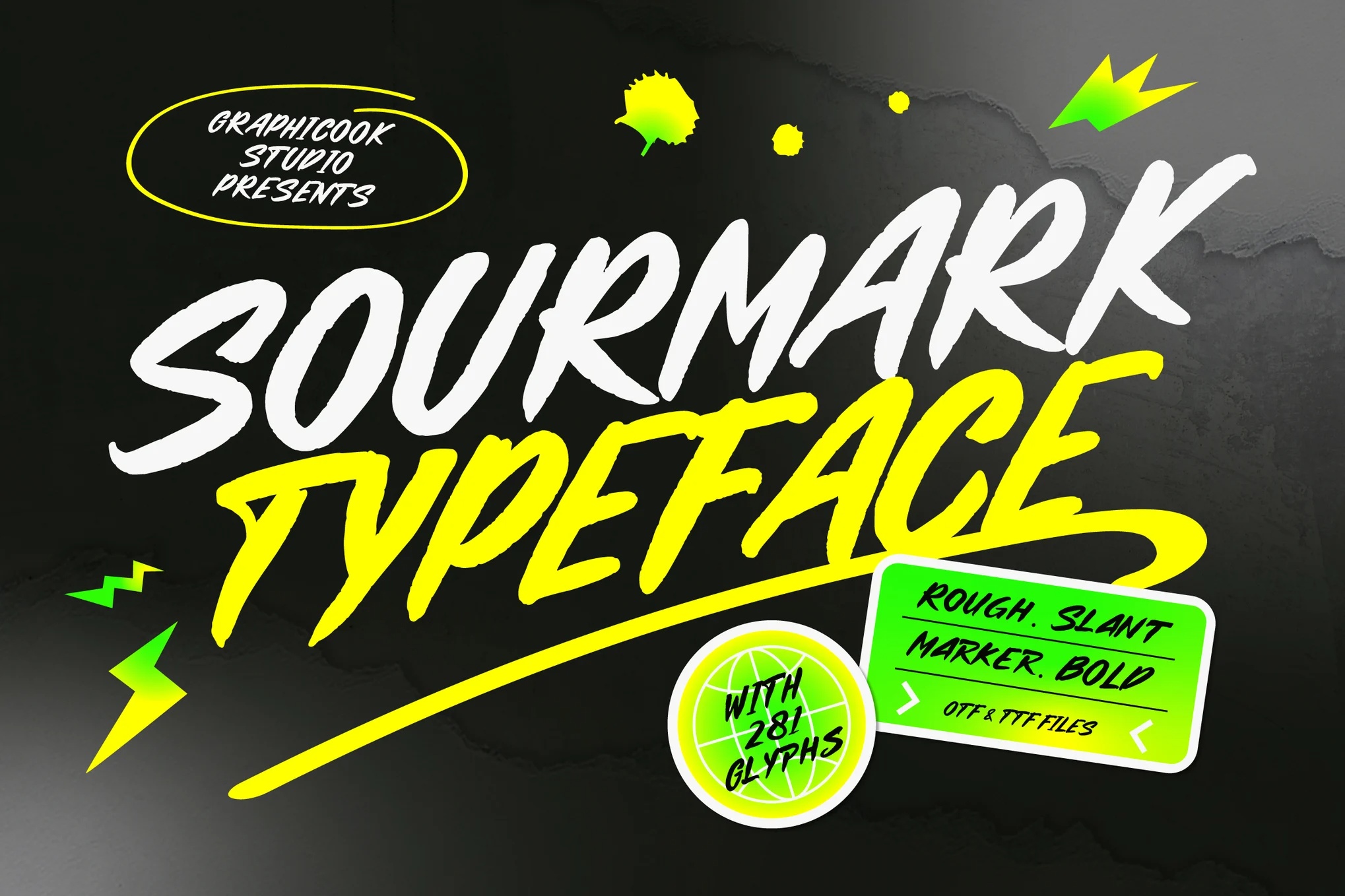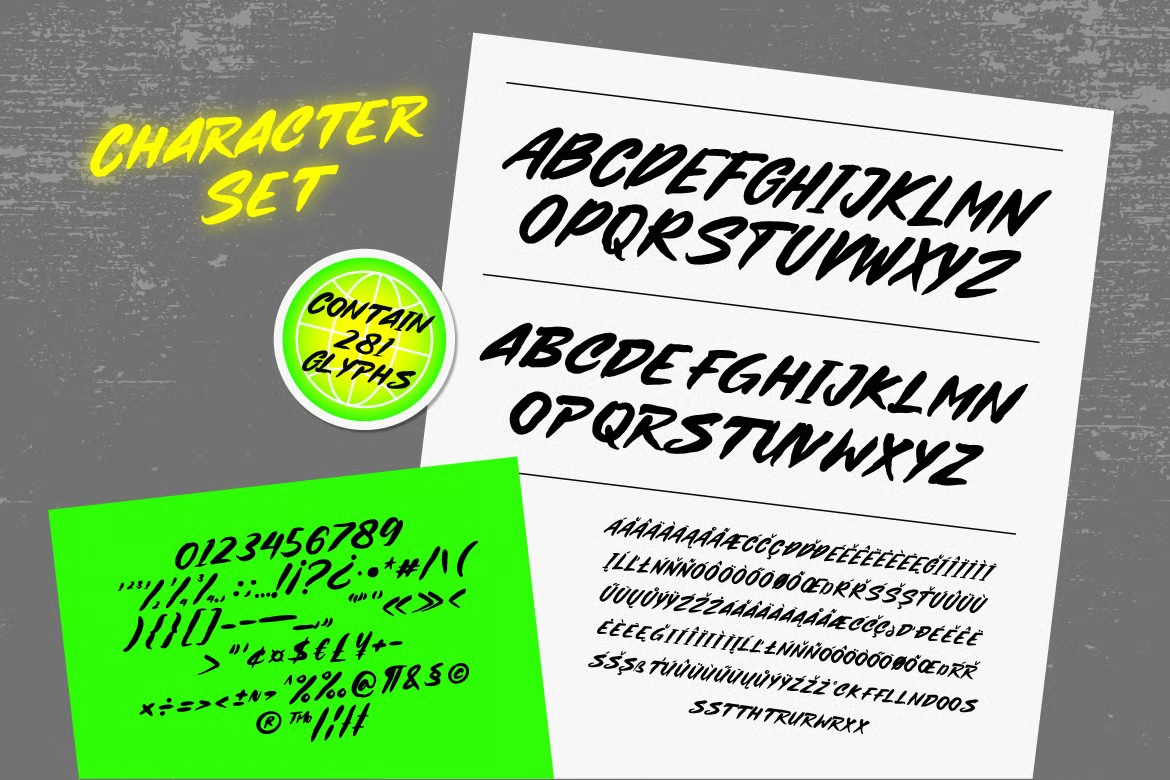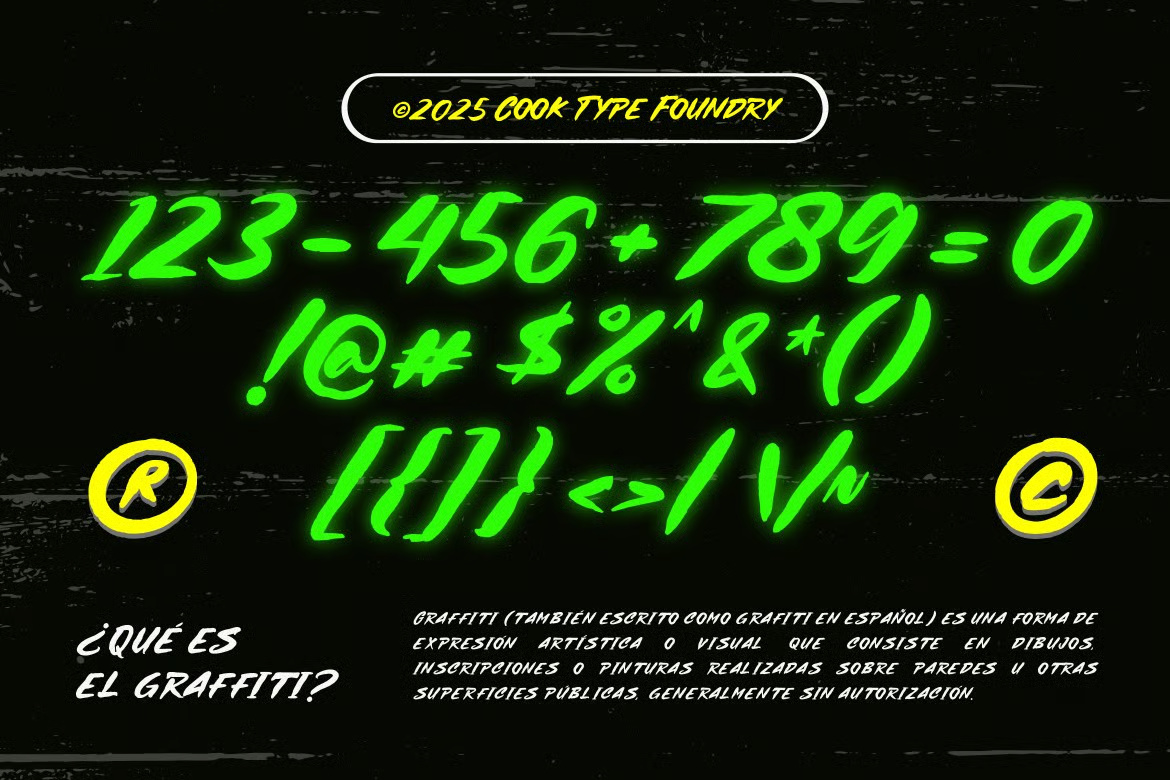
Sourmark is a graffiti-style marker font that brings raw, street-smart energy to your designs. With bold, edgy strokes and authentic, hand-drawn textures, each letter bursts with personality—perfect for projects that demand attention and attitude. The rugged, handcrafted letterforms evoke the spirit of urban rebellion, making Sourmark ideal for streetwear branding, poster art, music covers, or anything that aims to be loud, expressive, and visually impactful. Its chaotic charm blends perfectly with themes of youth culture, DIY creativity, and underground aesthetics.
Sourmark Script Font